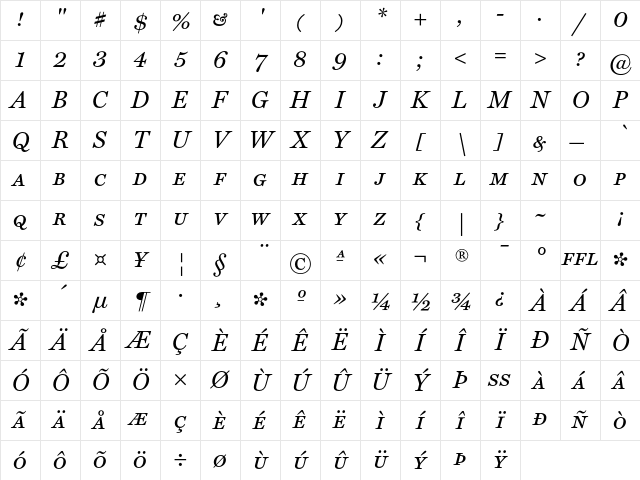
Miller is a composed and adaptable typeface that performs quietly and consistently across a wide range of design contexts. The slanted form adds forward momentum and visual energy.